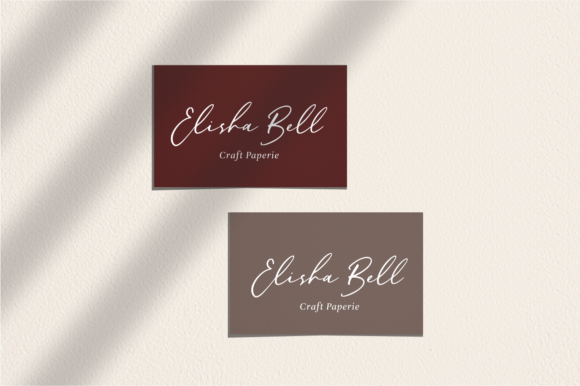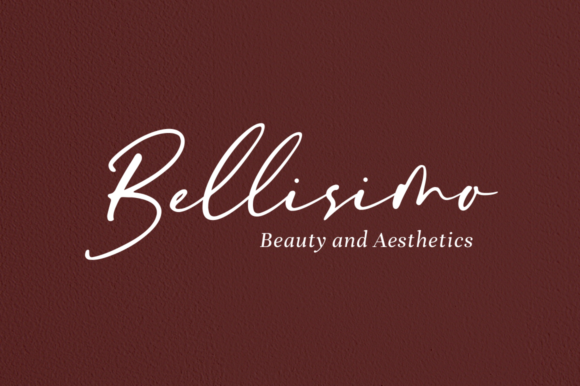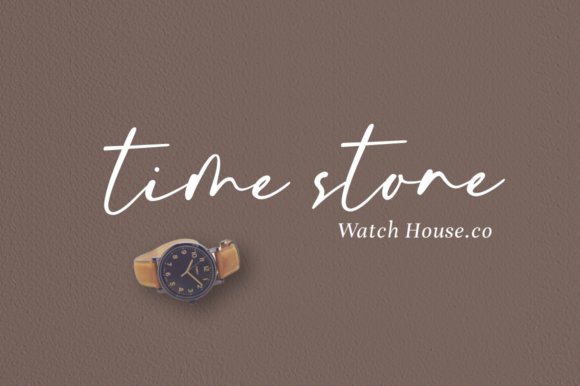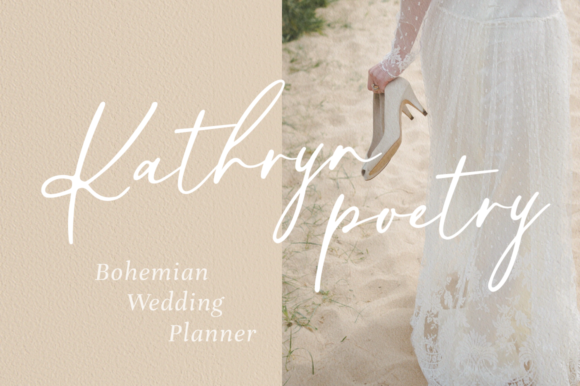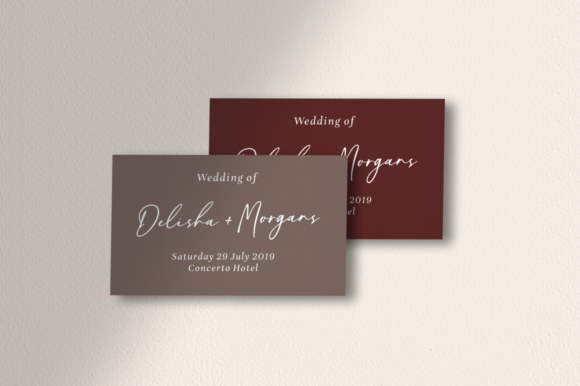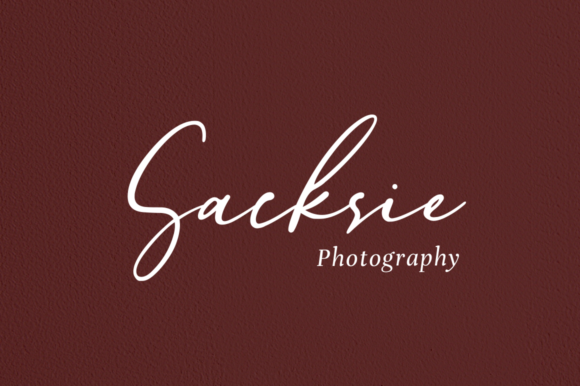
Darmogo Font: Elevate Your Designs with Elegance and Sophistication
In the world of typography, fonts play a crucial role in conveying the tone and personality of a design. For designers and crafters looking to add a touch of elegance to their projects, Darmogo Font is an excellent choice. This smooth and cool script font boasts a delicate feel that can instantly elevate any design idea.
What is Darmogo Font?
Darmogo Font is a modern script font designed to bring a sense of sophistication and refinement to various design applications. Its smooth, flowing lines and delicate curves create a visually appealing aesthetic that is perfect for a wide range of projects, from branding and advertising to packaging and digital media.
Key Features of Darmogo Font
- Smooth and Cool Script Font: Darmogo Font features smooth, connected letters that create a flowing and harmonious look.
- Delicate Feel: The font’s delicate curves and lines add a touch of elegance and sophistication to any design.
- Elegant and Versatile: Darmogo Font is suitable for a wide range of design applications, including logos, headings, and body text.
- Easily Readable: Despite its elegant and cursive nature, Darmogo Font remains highly readable, making it perfect for both digital and print designs.
Uses of Darmogo Font
Darmogo Font’s versatility makes it an excellent choice for various design projects, including:
- Branding and Logo Design: Create a lasting impression with Darmogo Font’s elegant and sophisticated look.
- Advertising and Marketing Materials: Use Darmogo Font to add a touch of refinement to brochures, flyers, and posters.
- Packaging Design: Elevate your product packaging with Darmogo Font’s smooth and cool script style.
- Digital Media: Darmogo Font is perfect for website headers, social media graphics, and other digital content.
Benefits of Using Darmogo Font
By incorporating Darmogo Font into your designs, you can:
- Enhance Visual Appeal: Darmogo Font’s elegant and sophisticated look can instantly elevate the visual appeal of your designs.
- Convey Professionalism: The font’s smooth and cool script style conveys a sense of professionalism and refinement.
- Stand Out from the Crowd: Darmogo Font’s unique and distinctive look can help your designs stand out in a crowded market.
Tips for Using Darmogo Font Effectively
To get the most out of Darmogo Font, consider the following tips:
- Use it as a Headline Font: Darmogo Font is perfect for headlines and titles, where its elegant and sophisticated look can shine.
- Pair it with Other Fonts: Experiment with pairing Darmogo Font with other fonts to create a unique and visually appealing typography combination.
- Adjust Font Size and Color: Adjust the font size and color to suit your design needs and ensure optimal readability.
Darmogo Font is an excellent choice for designers and crafters looking to add a touch of elegance and sophistication to their designs. With its smooth and cool script style, delicate feel, and versatility, Darmogo Font is perfect for a wide range of design applications. By incorporating Darmogo Font into your designs, you can enhance visual appeal, convey professionalism, and stand out from the crowd.